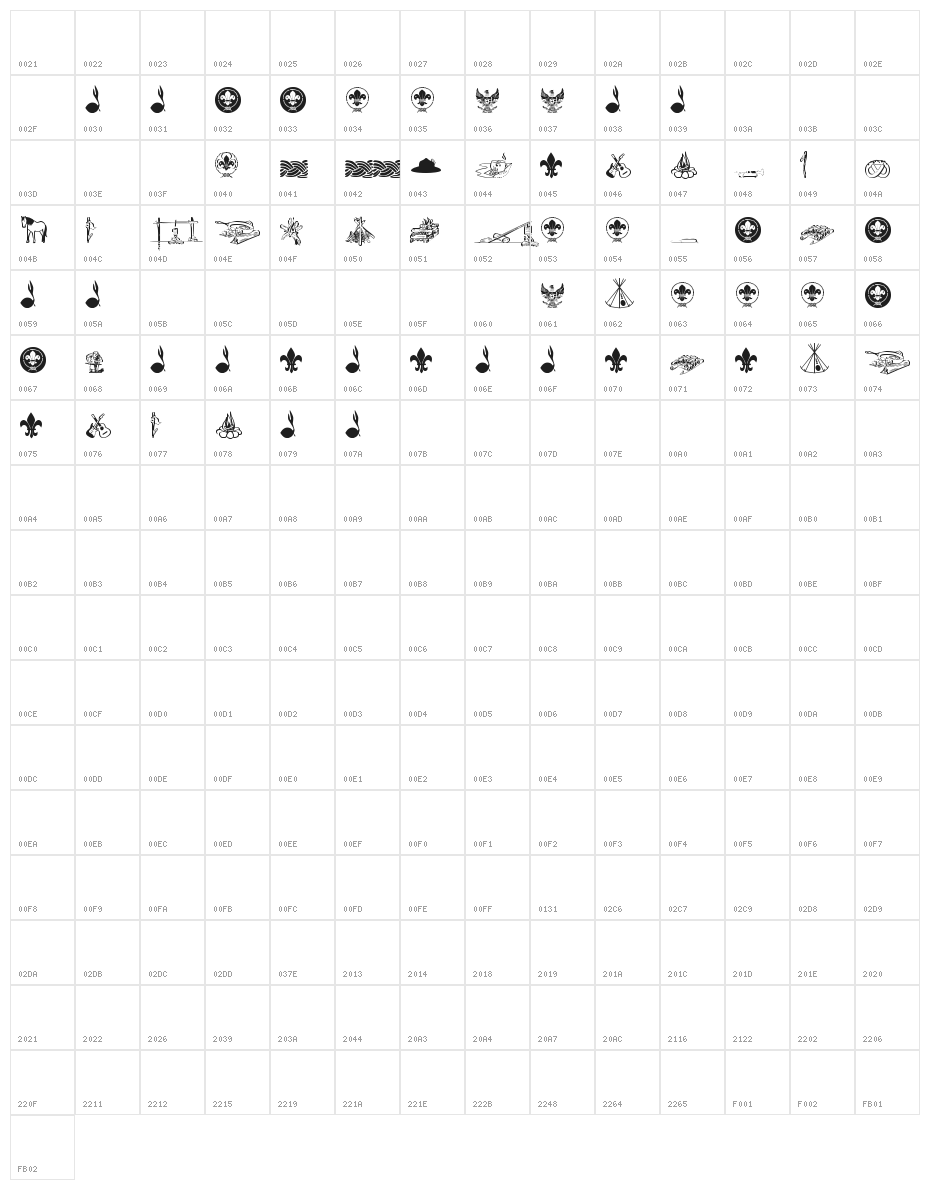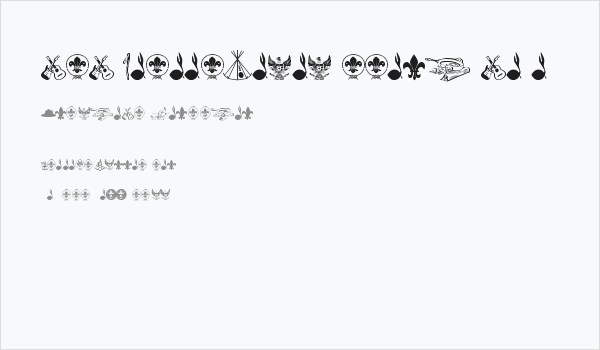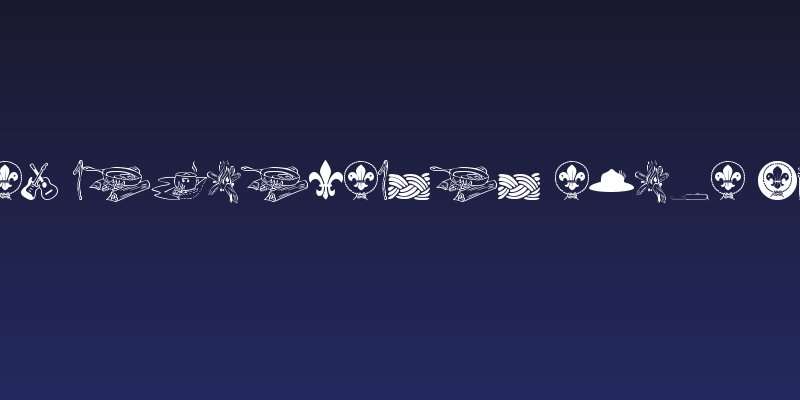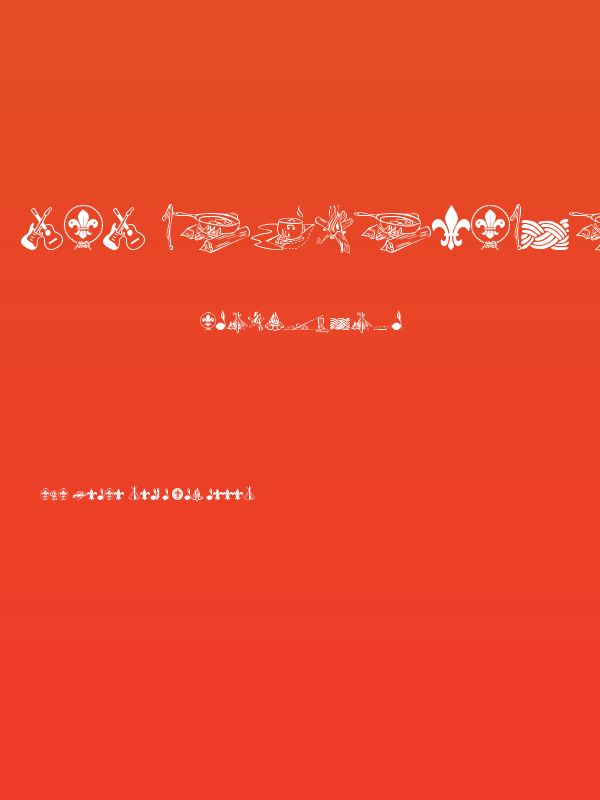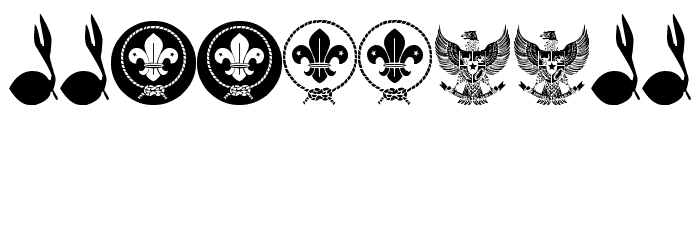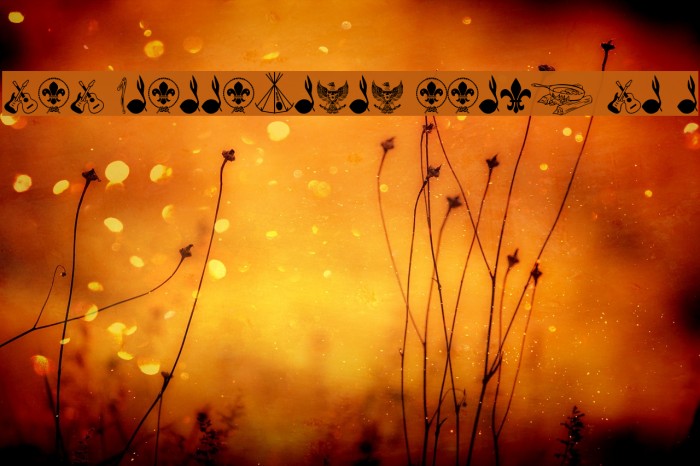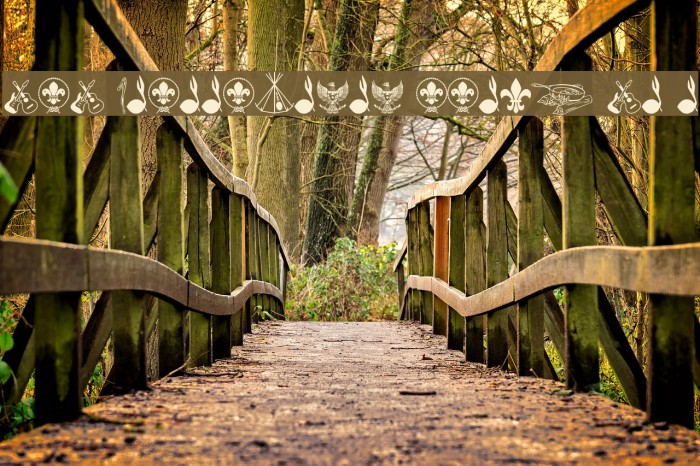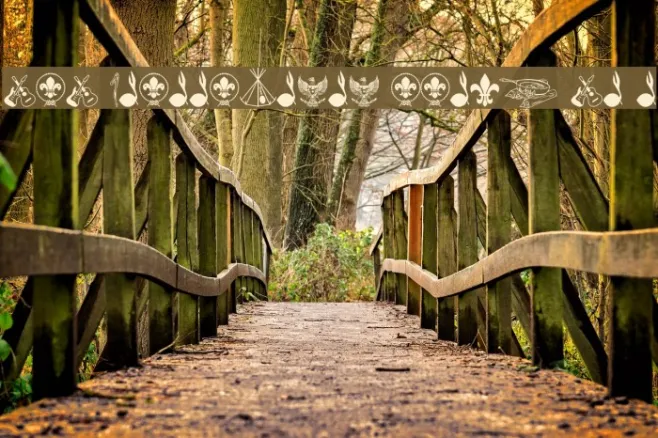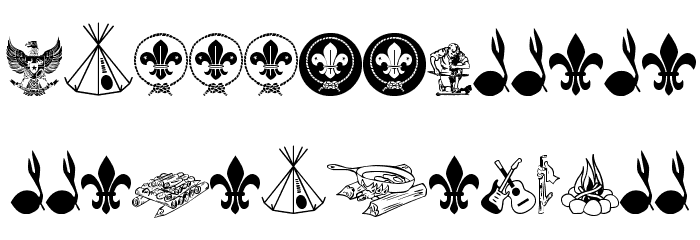
FTF Indonesiana Scout vl.1 Font
FTF Indonesiana Scout vl.1 Description
This collection features a series of scout-themed icons and symbols, each intricately designed to represent various elements of scouting life. The icons include motifs such as campfires, tents, knots, and fleur-de-lis, all rendered in a bold, illustrative style. The designs are detailed, with a mix of solid fills and line work, creating a dynamic and engaging visual experience. These elements are perfect for projects that aim to capture the adventurous and communal spirit of scouting, offering a nostalgic yet timeless appeal.
| Use Case | Logos, Themed graphics, Merchandise |
| Proposed Projects | Ideal for scouting event materials, educational resources, themed merchandise, and outdoor adventure branding. |